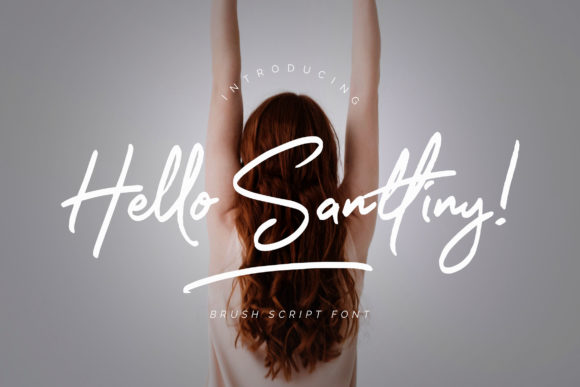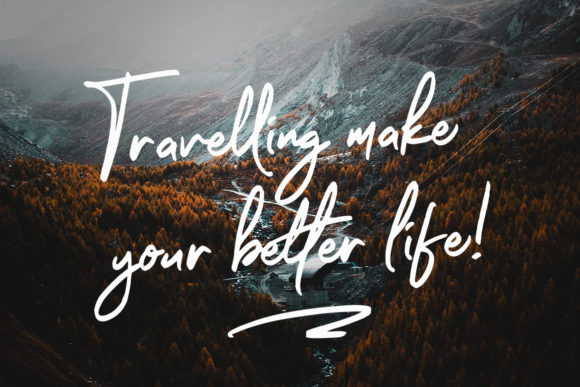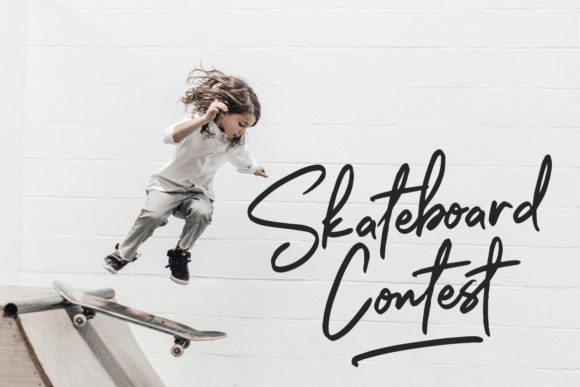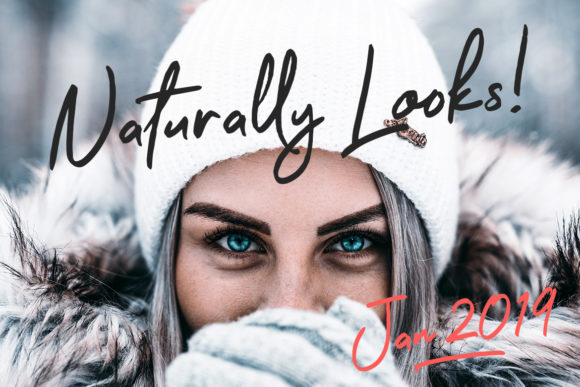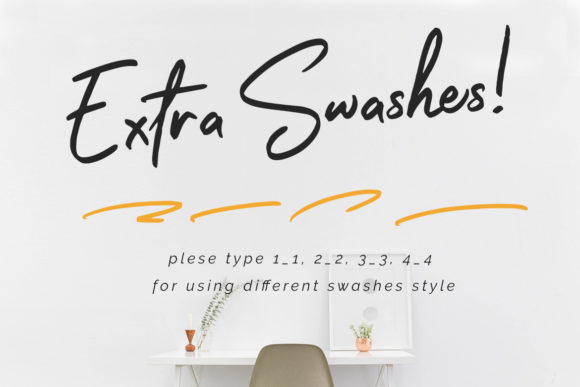
Hello Santtiny Font
About Hello Santtiny Font
The Hello Santtiny is a rough brush script. It has a clear style and dramatic movement.
It’s perfect for branding projects, logos, wedding designs, social media posts, advertisements, product packaging, product designs, labels, photography, watermarks, invitations, stationery and any other project that needs a handwriting taste.